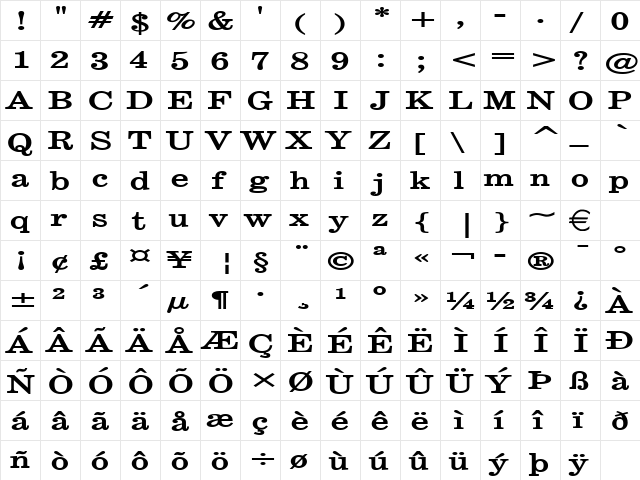
AnnualExtended Bold
Design Context for AnnualExtended Typeface
AnnualExtended takes a measured approach to typography — its balanced proportions and neutral character make it a reliable workhorse for both digital and print work. Its bold stroke weight gives it real presence on the page.